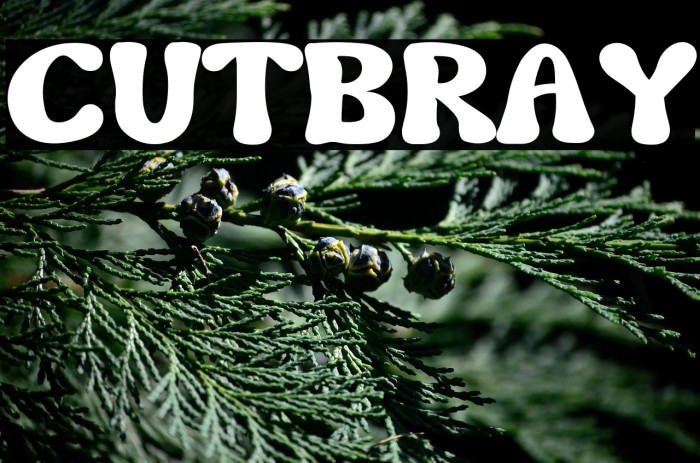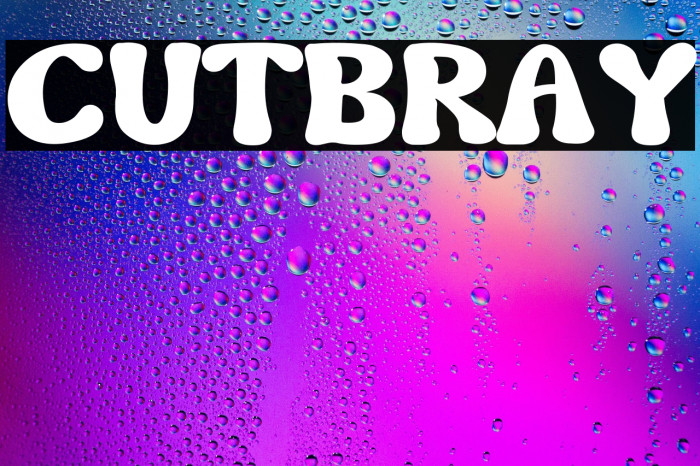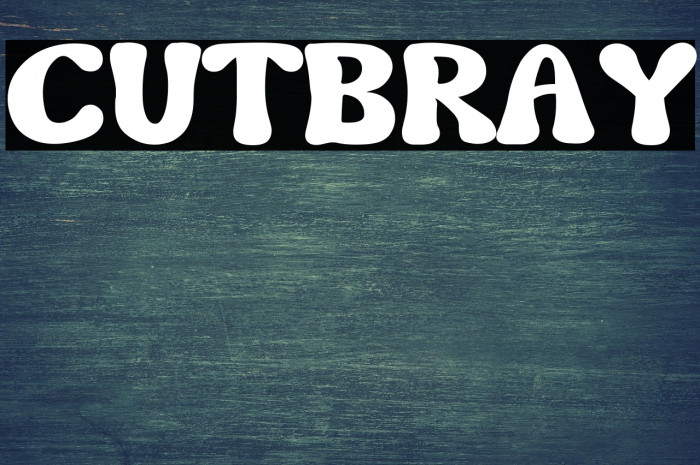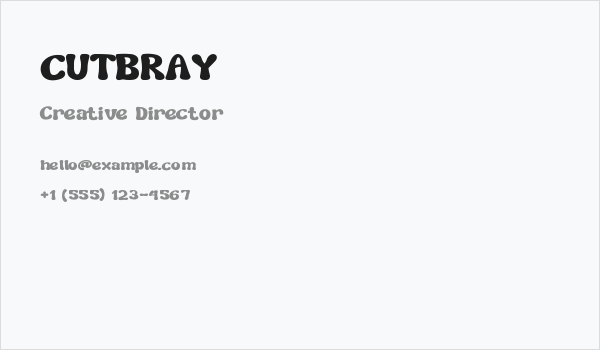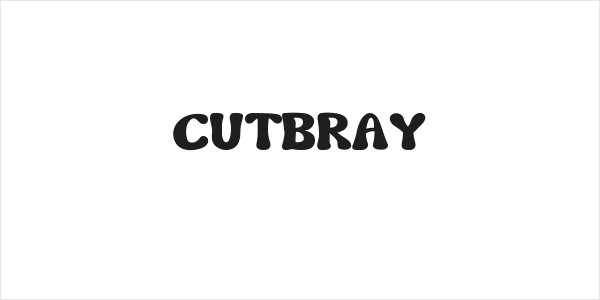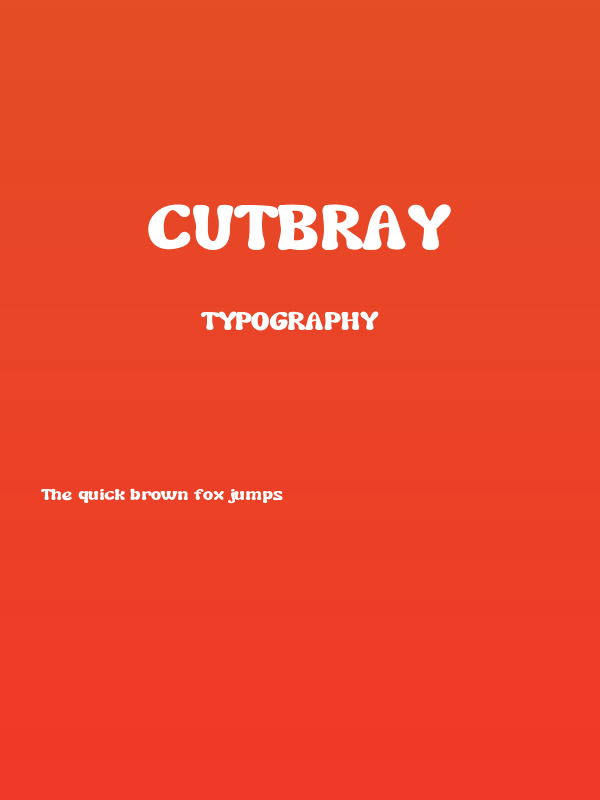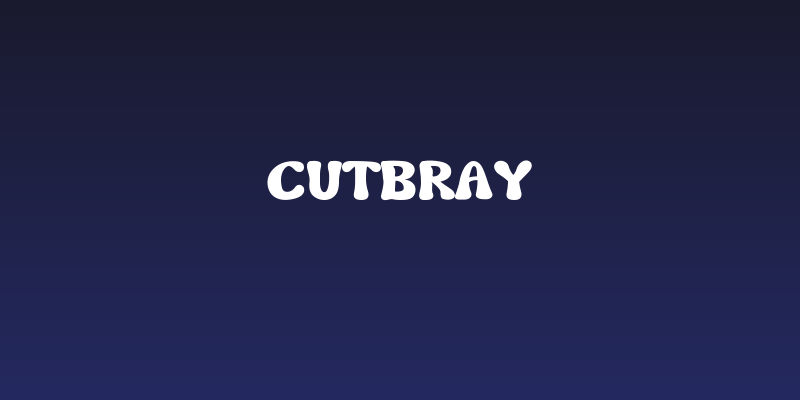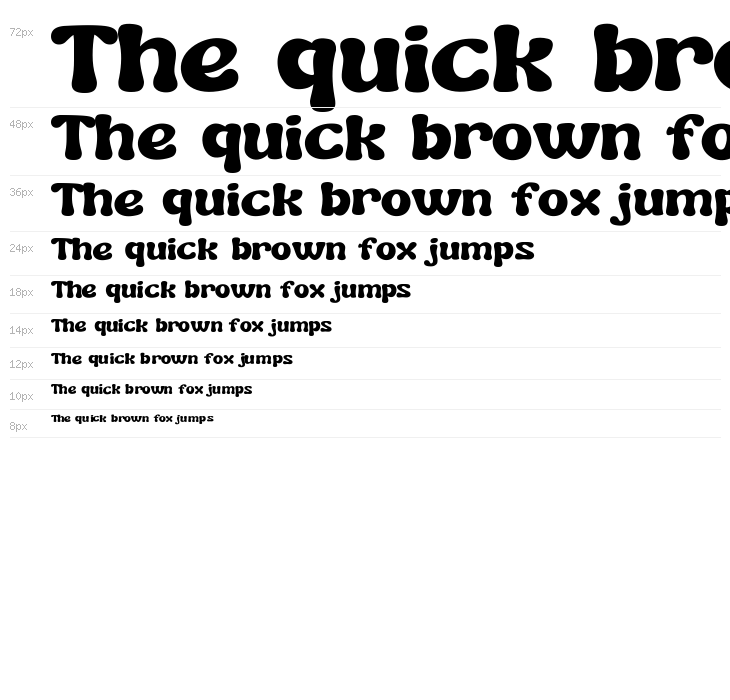
CUTBRAY Font
This font features a bold and playful design with rounded, bubble-like characters that convey a sense of fun and whimsy. The letters are thick and have a uniform stroke width, giving them a strong presence on the page. The overall style is reminiscent of retro or vintage designs, making it suitable for projects that aim to capture a nostalgic or lighthearted feel. The characters are well-spaced, ensuring readability despite their boldness. The numbers and special characters maintain the same playful aesthetic, making the font versatile for various uses.
Overall StyleVintage
Use CaseLogos, Headlines, Posters
Proposed ProjectsIdeal for children's books, playful branding, retro-themed posters, and party invitations.